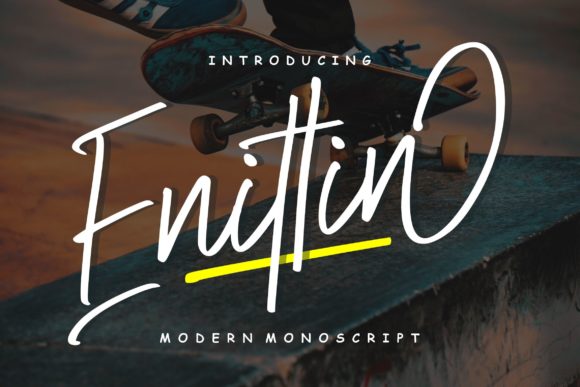
Enittin Font: The Perfect Handwritten Font for Elegant Designs
Are you looking for a font that can add a touch of elegance and charm to your designs? Look no further than the Enittin Font. This beautiful handwritten font is perfect for a variety of design projects, from wedding invitations and greeting cards to logos and business cards.
What Makes Enittin Font So Special?
The Enittin Font is a unique and stylish font that is sure to make your designs stand out. It has a charming and elegant feel that is perfect for adding a personal touch to your projects. The font is designed to look like it was written by hand, giving it a warm and inviting feel that is sure to delight.
One of the things that sets the Enittin Font apart from other fonts is its versatility. It can be used for a wide range of design projects, from formal wedding invitations to casual greeting cards. The font is also highly legible, making it easy to read and understand.
This Font Feels Equally Charming and Elegant
The Enittin Font is a font that feels equally charming and elegant. It has a sophisticated feel that is perfect for high-end designs, while also being playful and fun. This makes it a great choice for designers who want to create designs that are both elegant and approachable.
The font’s charming and elegant feel is due in part to its unique design. The letters are carefully crafted to have a sense of movement and flow, giving the font a dynamic and expressive feel. The font also has a beautiful, cursive style that adds to its elegance and sophistication.
Perfect for Wedding Invitations and Other Special Occasions
The Enittin Font is a popular choice for wedding invitations and other special occasions. Its elegant and charming feel makes it perfect for formal events, and its highly legible design ensures that your guests will be able to easily read the details.
In addition to wedding invitations, the Enittin Font is also great for other special occasions, such as baby showers, birthday parties, and anniversaries. Its versatility and elegance make it a great choice for any event that requires a personal touch.
Stunning on a Variety of Design Projects
The Enittin Font is stunning on a variety of design projects, including:
- Wedding invitations
- Thank you cards
- Quotes
- Greeting cards
- Logos
- Business cards
- And more!
Whether you’re creating a formal design or a more casual one, the Enittin Font is sure to add a touch of elegance and charm.
The Enittin Font is a beautiful and elegant handwritten font that is perfect for a variety of design projects. Its charming and elegant feel makes it a great choice for wedding invitations, greeting cards, logos, and more. With its PUA encoding, you can easily access all of the glyphs and swashes, giving you a high degree of flexibility and creativity.
If you’re looking for a font that can add a touch of elegance and charm to your designs, look no further than the Enittin Font. Its unique design, versatility, and PUA encoding make it a great choice for designers who want to create beautiful and personalized designs.